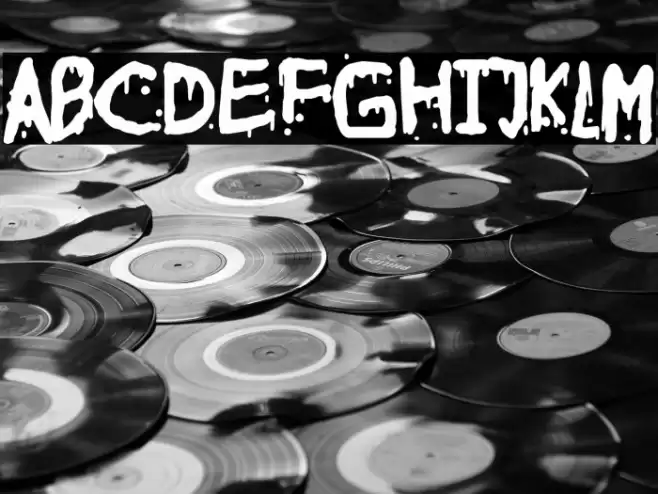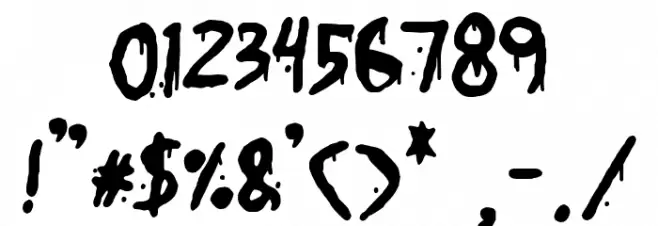
Blood & Horror Font
Blood & Horror Description
This font exudes a chilling and eerie aesthetic, reminiscent of dripping blood or ink. The characters are bold and jagged, with irregular edges that suggest a sense of horror and suspense. Each letter appears as if it is melting or bleeding, creating a dynamic and unsettling visual effect. The uppercase and lowercase letters maintain a consistent style, enhancing the overall theme of fear and mystery. The numbers and special characters follow the same design, ensuring uniformity across all glyphs. This font is ideal for projects that aim to evoke a sense of dread or excitement, such as horror movie posters, Halloween invitations, or themed events.
A bold, dripping font perfect for horror-themed designs from Uncategorized fonts.
- Font: Blood & Horror
- Proposed Projects: Horror movie posters, Halloween invitations, themed event signage, spooky merchandise.
- Overall Style: Horror, Eerie, Dramatic
- Use Case: Headlines, Posters, Themed Events